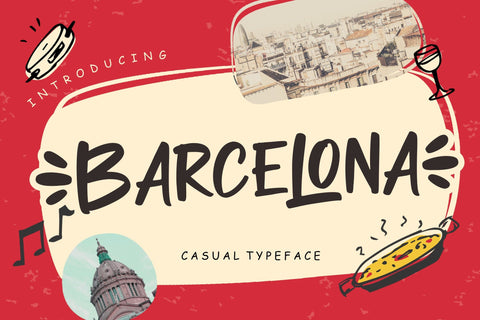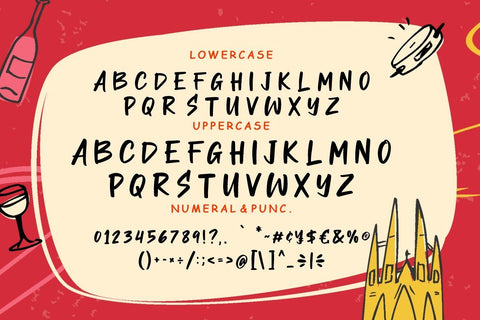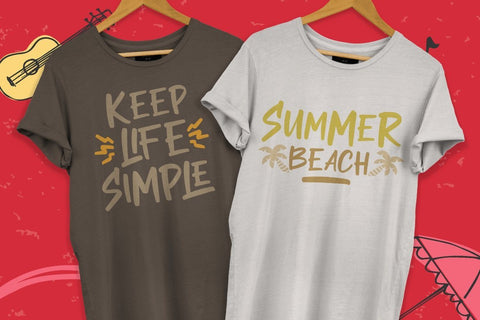
Barcelona Casual Typeface
Barcelona is casual stylish hand-lettered font with fun & spontaneous style.
Barcelona is perfect for branding projects, logo, wedding designs, social media posts, advertisements, product packaging, product designs, label, photography, watermark, invitation, stationery and any projects that need handwriting taste.
- Ton of glyphs
- Ligature, Alternate & Swashes
- Fonts include multilingual support for; Afrikaans, Albanian, Czech, Danish, Dutch, English, Estonian, Finnish, French, German, Hungarian, Italian, Latvian, Lithuanian, Norwegian, Polish, Portugese, Slovak, Slovenian, Spanish, Swedish.